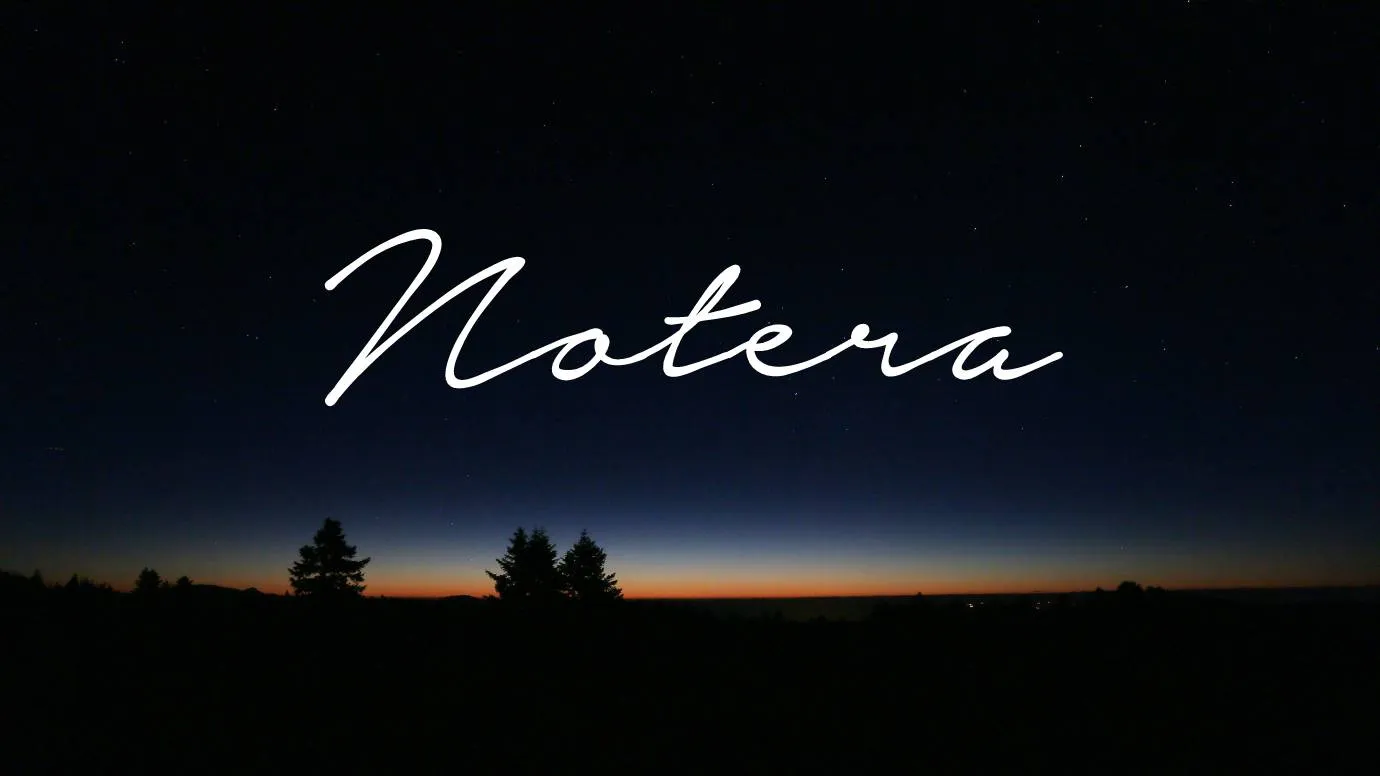
Font Introduction
Natera Font Family is the coolest script typeface family with multi-language support and a complete set of 360 hand-crafted characters. It was designed and shared by a Swedish designer named Måns Grebäck. He has also designed many notable typefaces in the font marketplace. This would be the greatest font for your logotypes, headlines, titles, and slogans.
This font family contains 6 weights including regular, thin, light, medium, bold, and black, each weight has uppercase letters, lowercase, general punctuations, symbols, updated icons, and many special characters, so a complete font package for your upcoming project.
Features of Notera Font
- This lovely and hand-made typeface is well suited for your titles and headlines and also great for any size of your textures.
- You can use this font for creating your appealing quotes, Hotel/Casino names, Post descriptions, Powerpoint Presentations, Signatures, Slogans and is also useful for your office tasks such as general reports, invoices, resumes, letterheads, product titling, and many more.
Details of Font
Name | Notera Font |
Designer | Mans Greback |
Style | Script |
Faqs
What is the most similar font to Notera?
There are many similar fonts that you can easily get on the web like B de Bonita regular Font, OPTILariatScript Font, Barlow font, Johnny Torch 3D Rotalic Font, and many more but Johnny Torch 3D Rotalic is very close to this typeface.
What font is Notera?
This is a high-quality script typeface family that comes in 6 weights from regular to black. It has many special characters along with extensive language support, ligatures, and many stylistic alternates. The designer of this typeface is Måns Grebäck.